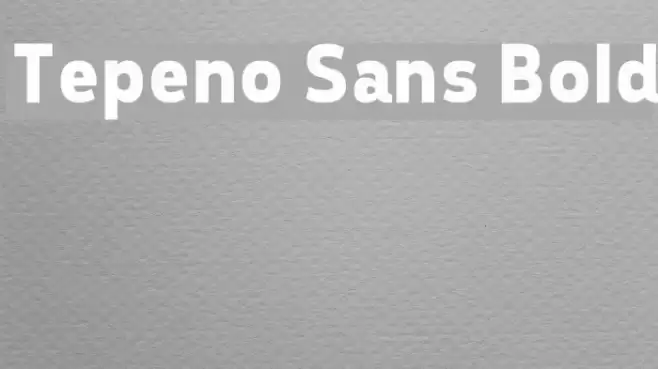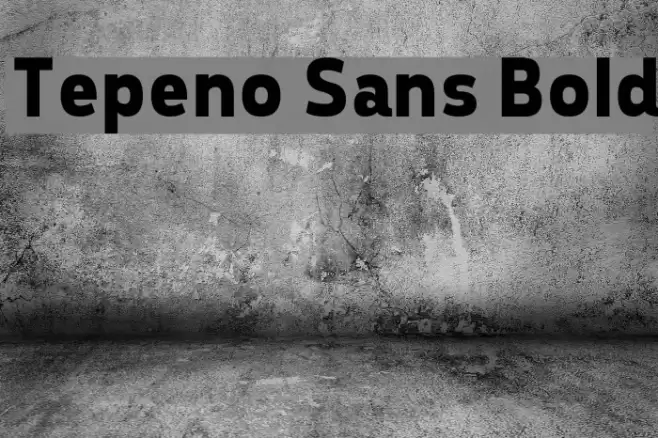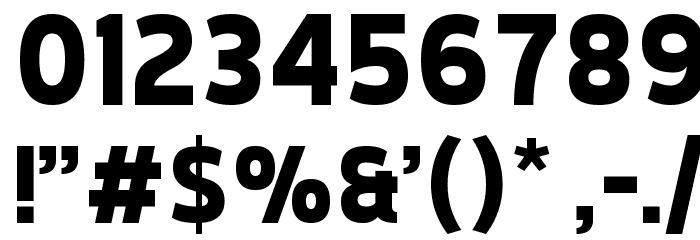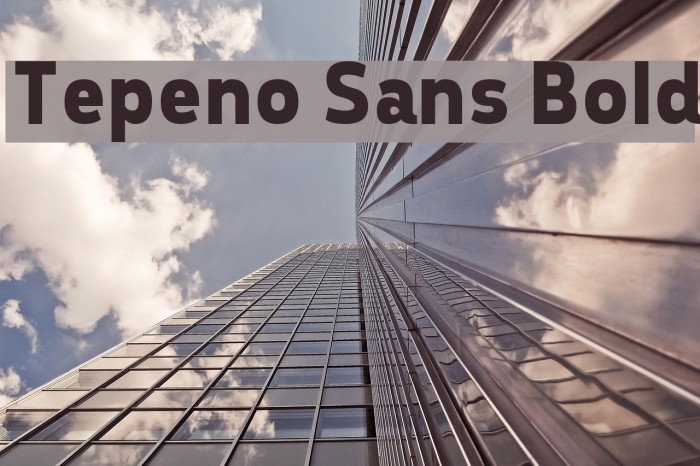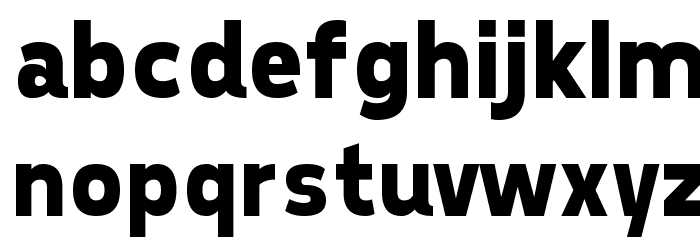
Tepeno Sans Bold Font
Tepeno Sans Bold Description
This typeface features a bold and robust design, characterized by thick strokes and a strong presence. The uppercase letters are uniform in height, providing a sense of stability and balance. The lowercase letters maintain a consistent weight, ensuring readability and clarity. The numerals are clear and straightforward, matching the boldness of the alphabetic characters. Special characters are well-integrated, maintaining the overall bold aesthetic. The font's design is modern and versatile, making it suitable for a variety of applications where a strong visual impact is desired.
A bold, modern typeface with thick strokes and strong visual impact from Uncategorized fonts.
- Proposed Projects: Ideal for branding, advertising, headlines, and any project requiring a bold statement.
- Use Case: Headlines, Logos, Advertising